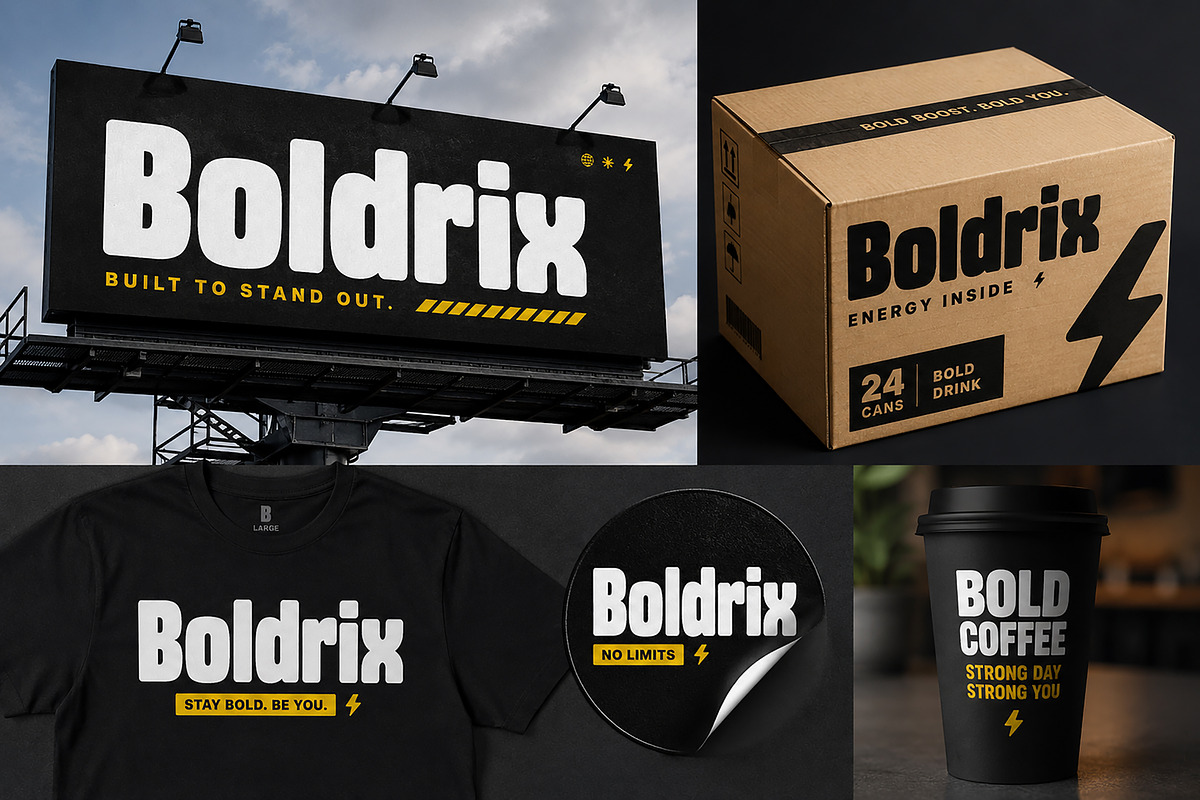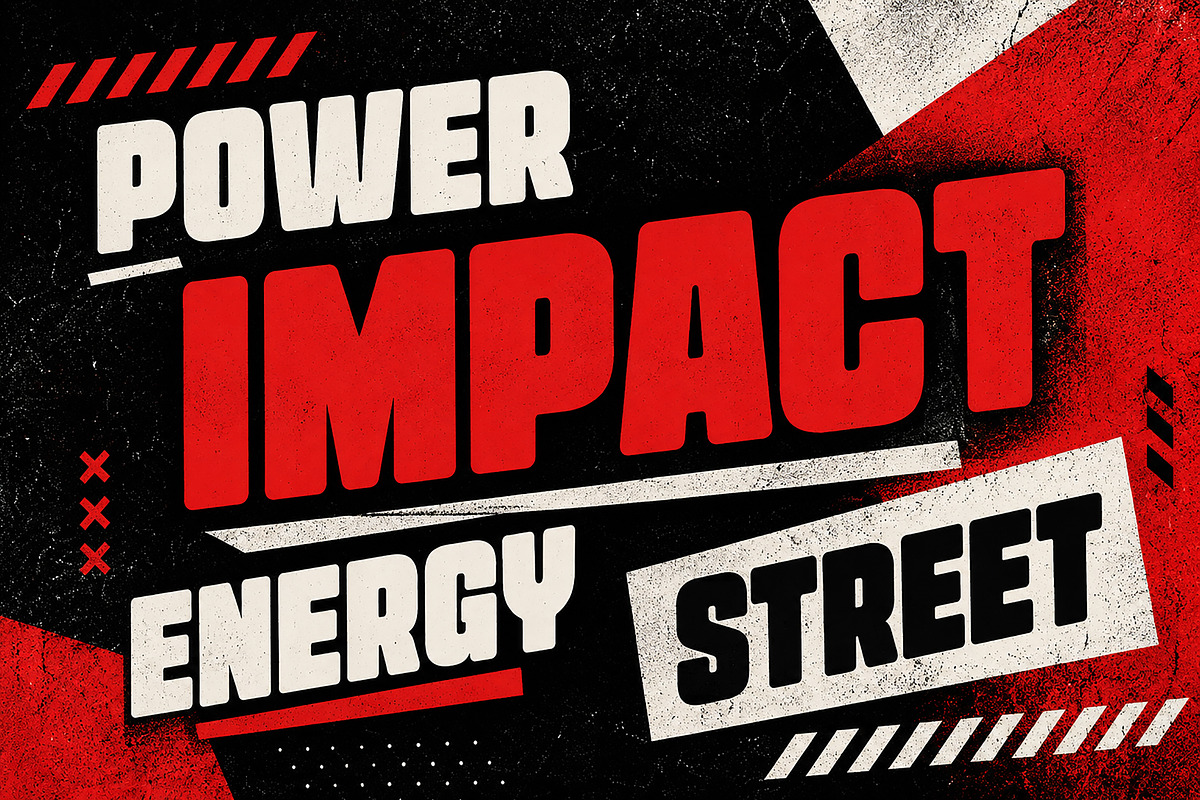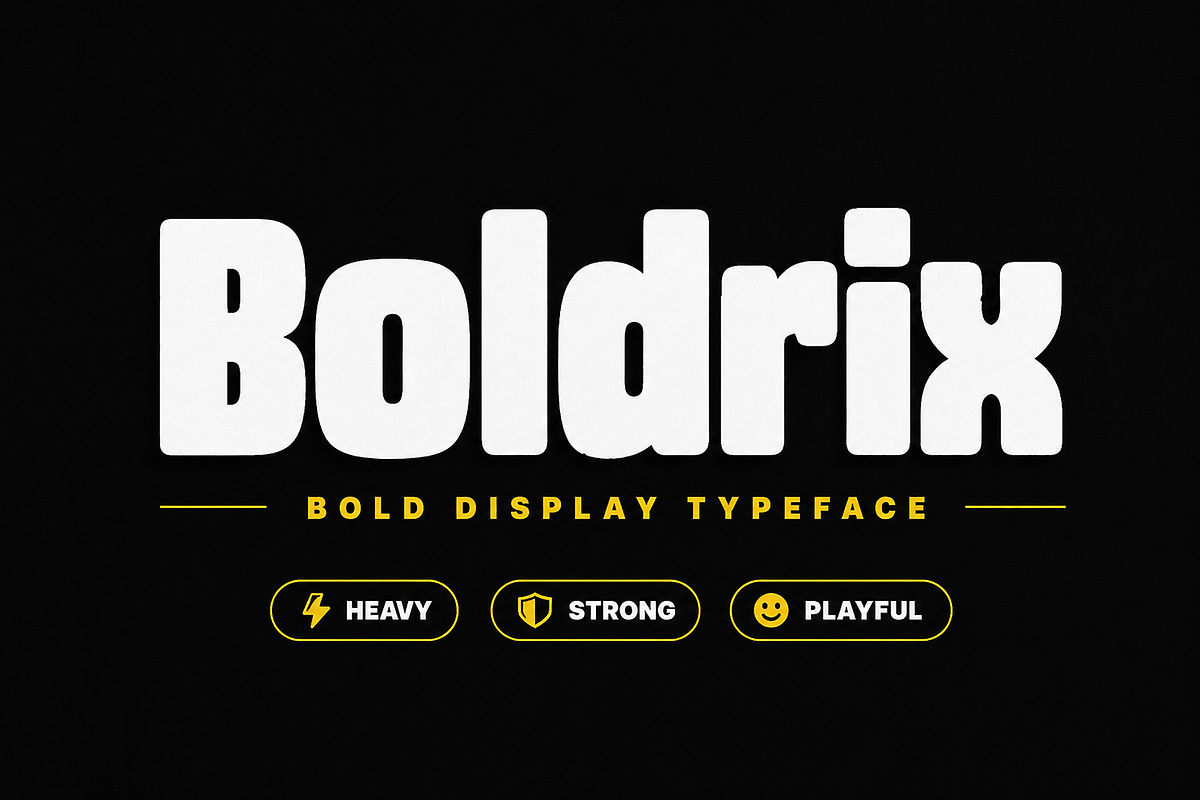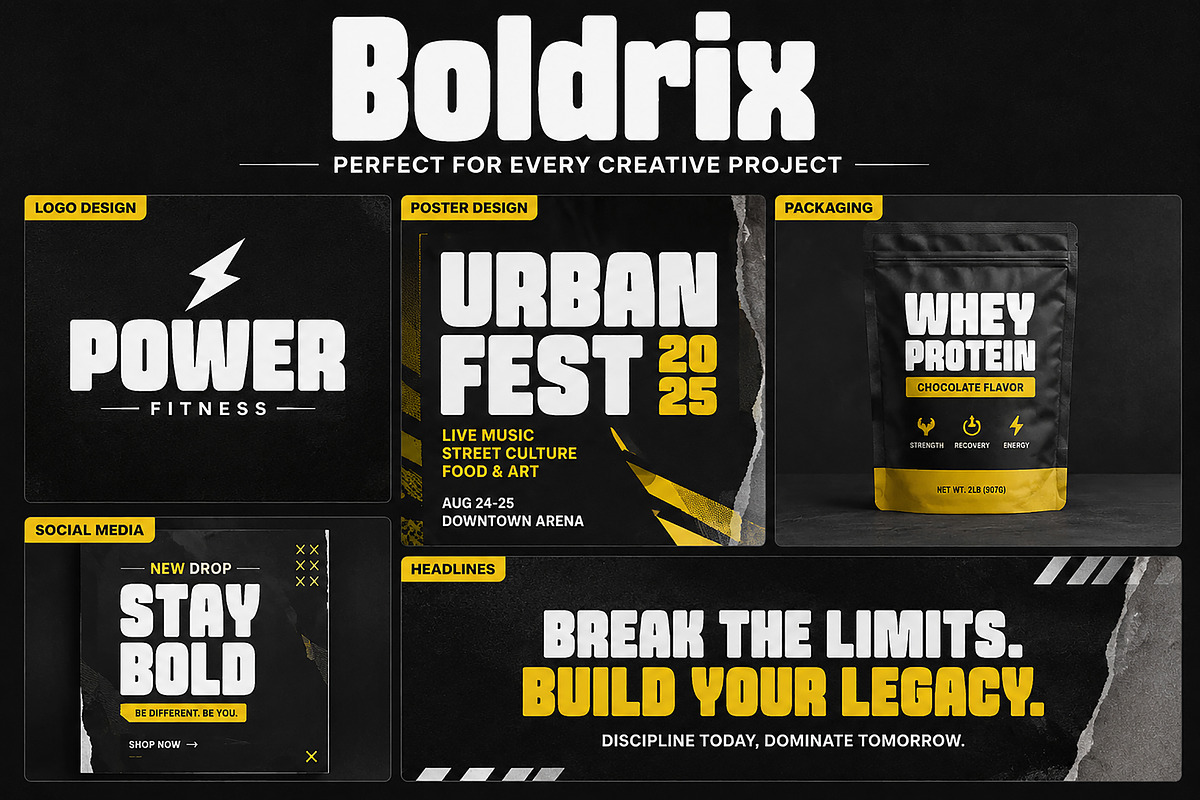
Boldrix
Boldrix is a bold display typeface crafted to make a strong visual impact. With its chunky letterforms, playful curves, and powerful presence, Boldrix is designed for creators who want their typography to stand out instantly.
Perfect for logos, posters, packaging, social media graphics, headlines, gaming titles, kids branding, streetwear, and energetic brand identities. Its thick and confident structure delivers a modern urban feel while maintaining a fun and approachable personality.
Whether you’re building a powerful brand, designing attention-grabbing posters, or creating standout merchandise, Boldrix gives your project the bold voice it deserves.
Uppercase Letters
Ligatures (if available)
Alternate Characters (if available)
Poster Design
Social Media Content
Headlines
Streetwear Branding
Gaming Graphics
Kids Branding
Sports Branding
Merchandise Design
Boldrix is built to be loud, bold, and unforgettable.